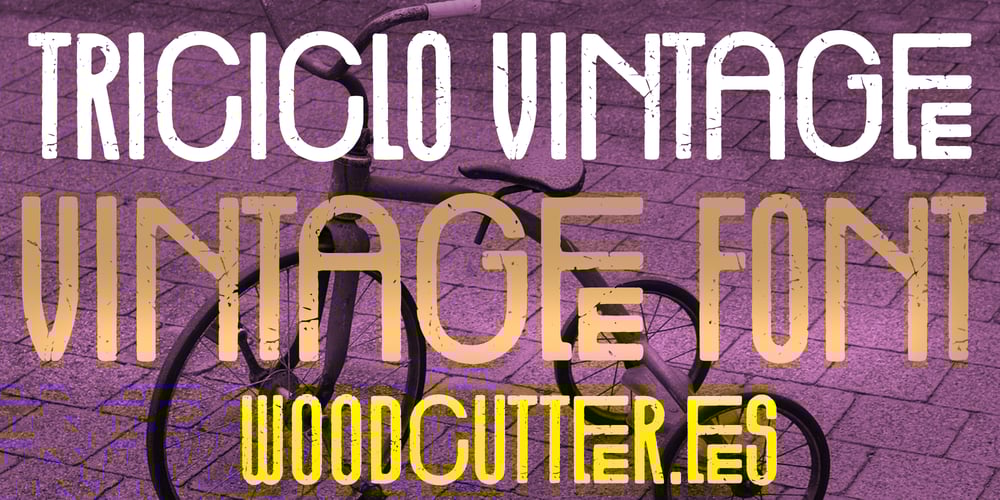
Triciclo Vintage Font Family was designed by Jordi Manero and published by Woodcutter. Triciclo Vintage contains 1 styles and family package options. “Triciclo Vintage” is an uppercase font with a distinct vintage style. Its design evokes an old-school aesthetic with an elegant deco touch, making it an ideal choice for retro projects. The letterforms are refined, balanced, and carry a nostalgic air that recalls past eras. This font is perfect for logos, posters, and any design looking to convey a classic and timeless feel, adding sophistication and a unique charm to any graphic project.